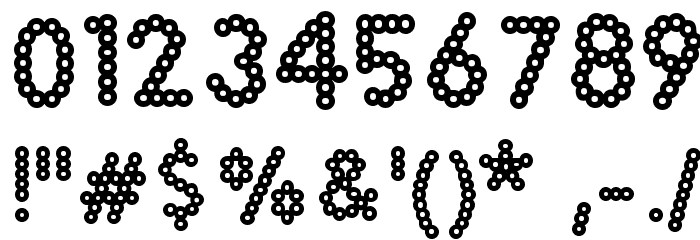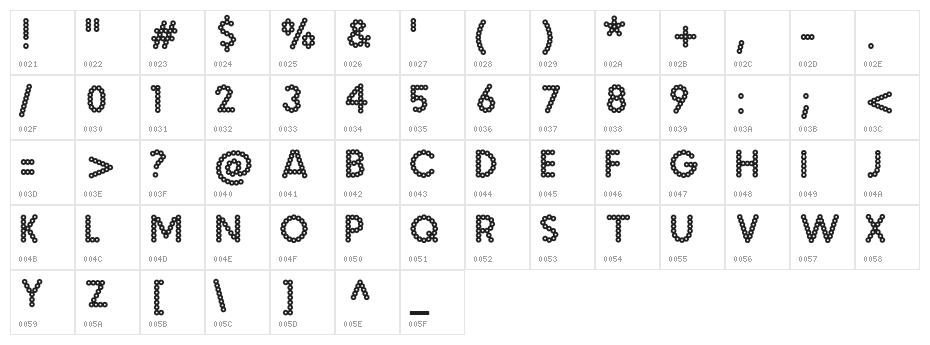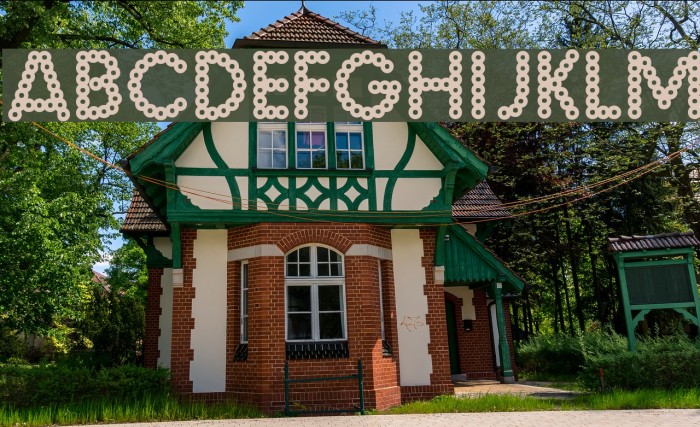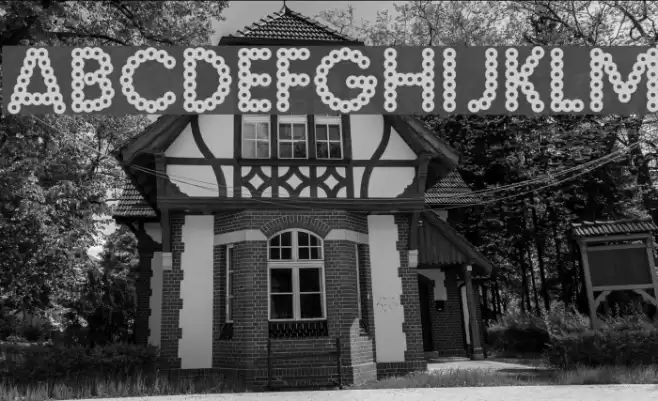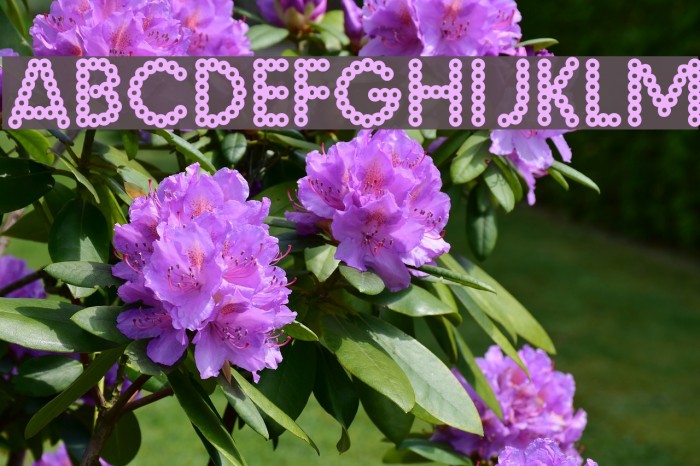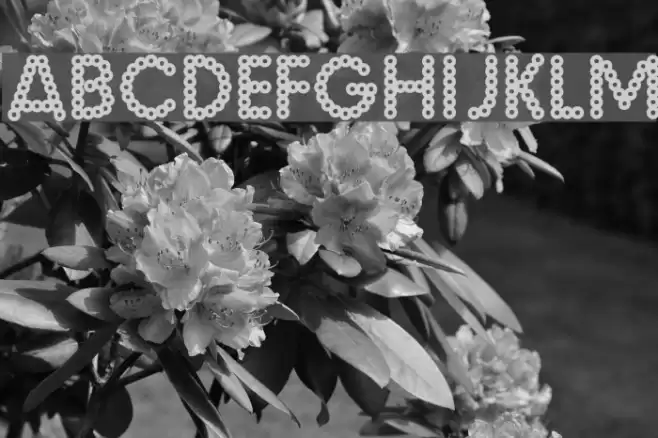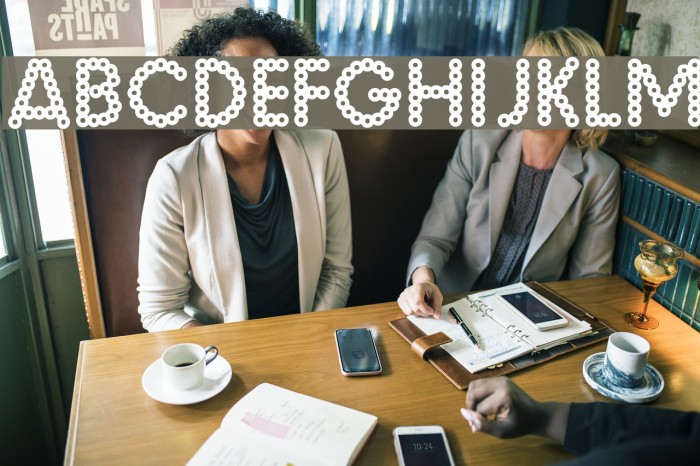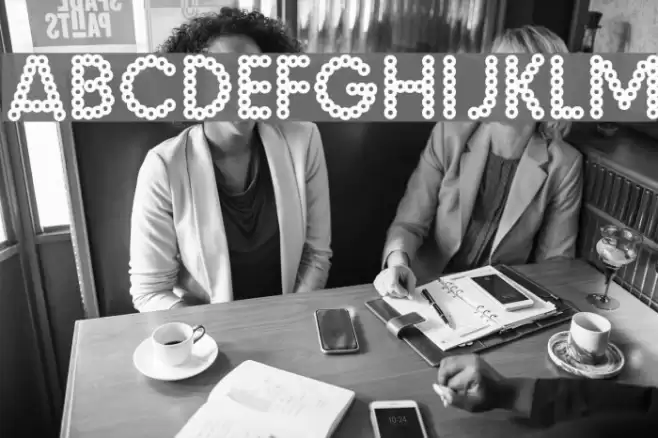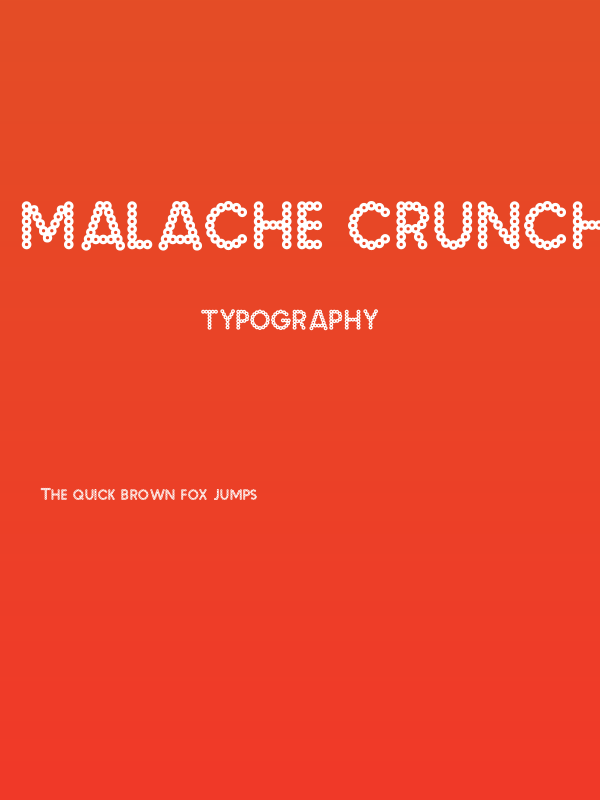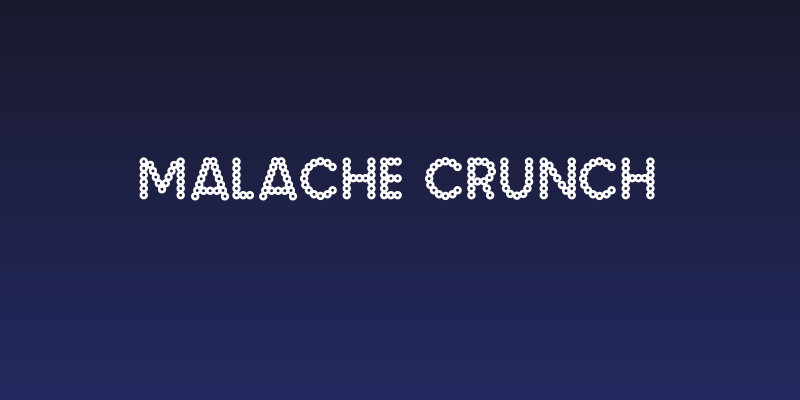
Malache Crunch Font
Malache Crunch Description
This font features a unique and playful design, characterized by its dotted pattern that forms each letter and number. The circular dots create a bubbly and textured appearance, making it stand out as a decorative and eye-catching typeface. The uppercase and lowercase letters maintain a consistent style, with each character composed of evenly spaced dots that give it a cohesive look. The numbers and special characters follow the same design principle, ensuring uniformity across the entire set. This font's distinct style makes it ideal for projects that require a fun and engaging visual element.